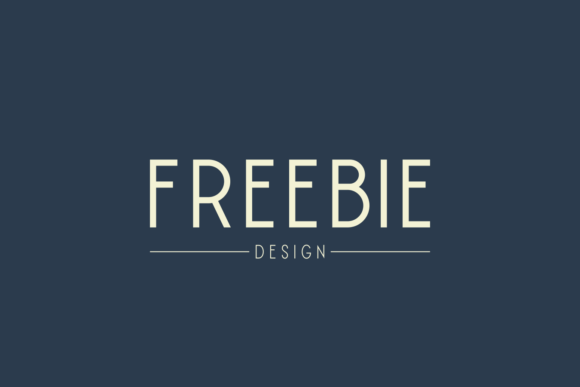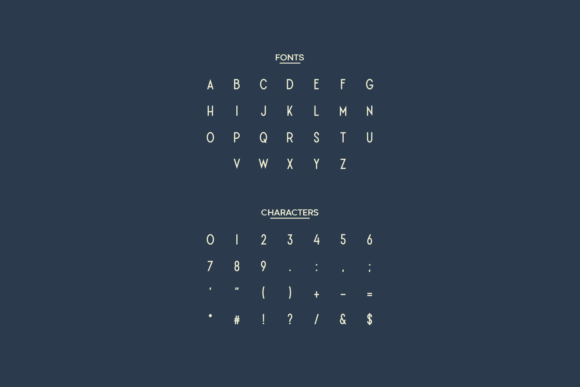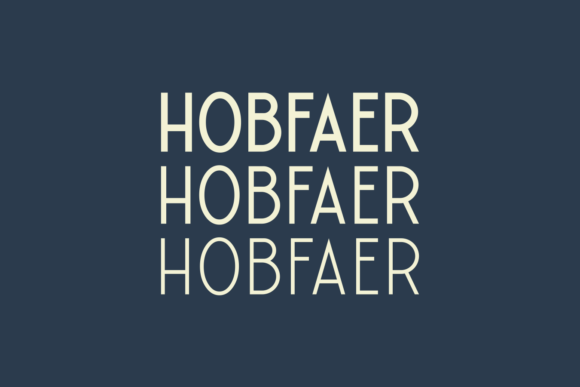
Introducing Elbone Font: The Ultimate Modern Sans-Serif for Designers
In the world of typography, fonts play a crucial role in conveying messages, evoking emotions, and enhancing the visual appeal of designs. For designers and crafters, finding the right font can make all the difference between a good design and a great one. This is where Elbone Font comes in – a modern, minimalistic sans-serif font that’s poised to revolutionize your font library.
What is Elbone Font?
Elbone is a sleek, contemporary sans-serif font designed to adapt to any topic or theme. Its clean lines, simple shapes, and uncluttered aesthetic make it an incredibly versatile font that’s perfect for a wide range of design projects. Whether you’re working on a logo, branding materials, digital content, or print projects, Elbone Font is an excellent choice.
Key Features of Elbone Font
- Modern and Minimalistic: Elbone’s design is characterized by its simplicity and modernity. The font’s minimalistic approach ensures that your designs look sleek, sophisticated, and highly professional.
- Highly Versatile: Elbone’s neutral design makes it suitable for various applications, from digital media to print materials. It can be used for headlines, body text, and even captions, making it a valuable addition to your font collection.
- Ease of Readability: The font’s clear and open design ensures excellent readability, even at smaller font sizes. This makes it perfect for body text, articles, and other content where legibility is crucial.
Elbone Font offers numerous benefits for designers and crafters, including:
- Wide Range of Applications: From logos and brochures to websites and social media graphics, Elbone Font can be used in a multitude of design projects.
How to Use Elbone Font Effectively
To get the most out of Elbone Font, consider the following tips:
- Pair with Other Fonts: While Elbone is stunning on its own, it can also be paired with other fonts to create visual interest. Experiment with contrasting fonts to find the perfect combination for your project.
- Experiment with Sizes and Weights: Elbone comes in various sizes and weights. Play around with different combinations to add hierarchy and emphasis to your designs.
- Customize and Adapt: Don’t be afraid to adjust the font’s color, spacing, and other attributes to suit your design’s specific needs.